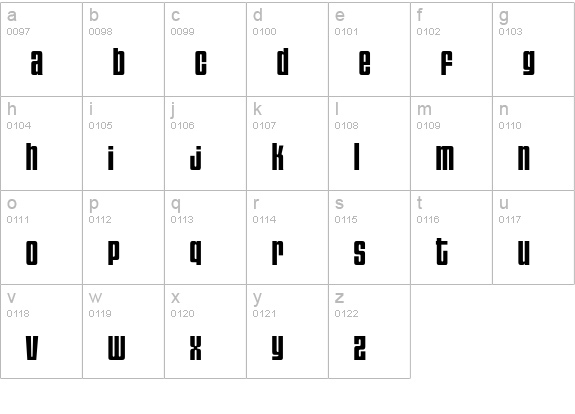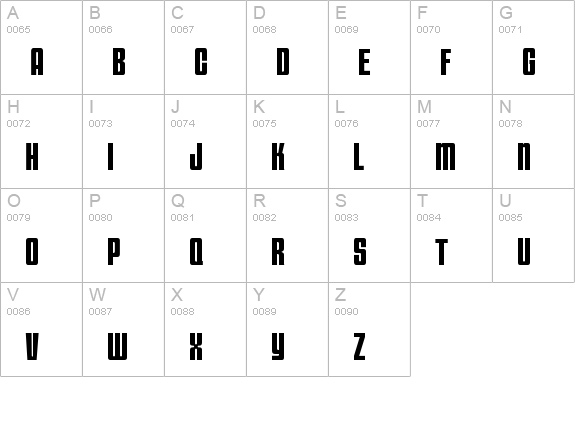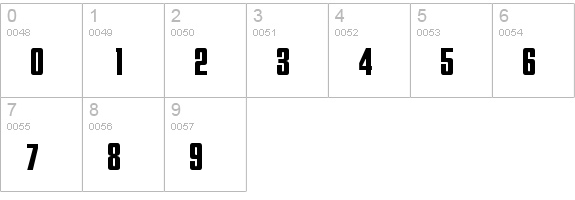
Stark-SemiBold Font Details
Stark-SemiBold is a sub-bold, structured variant in the Stark typeface family \xE2\x80\x94 well suited to sub-headlines and emphasised passages.
Stark-SemiBold font is a bold and powerful typeface that exudes confidence and strength. Its sturdy and well-defined letterforms make it perfect for headlines, logos, and any design that needs to make a bold statement. This font is characterized by its clean lines and sharp edges, creating a modern and contemporary look. The semi-bold weight adds just the right amount of emphasis without overpowering the overall design. It strikes the perfect balance between elegance and impact. Stark-SemiBold font is designed with versatility in mind, making it suitable for a wide range of projects. Whether you're creating a sleek and professional business presentation or designing a striking poster, this font will make your text stand out and leave a lasting impression. One of the best things about Stark-SemiBold font is that it is free! Yes, you read that right. This amazing font is freely available to download at FontsMarket.com. Now you can elevate your designs without breaking the bank. So why wait? Go ahead and download Stark-SemiBold font today and unleash its boldness and versatility in your next design project. Whether you're a professional designer or just starting out, this font is sure to become your go-to choice for adding a touch of sophistication and impact to your creations.